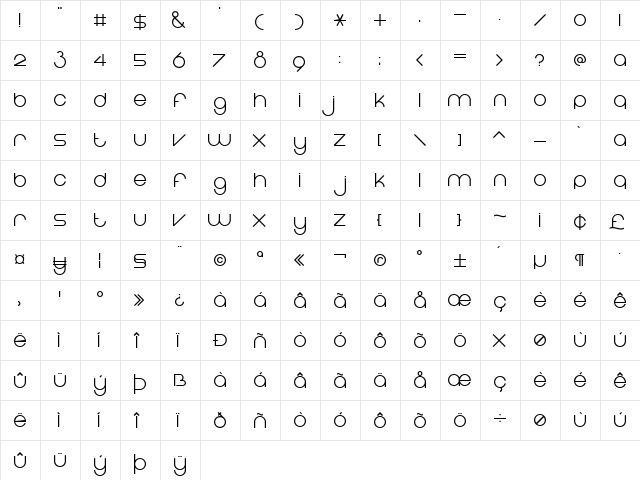
Eight One Regular
| Foundry | Tendron |
| Designer | Tendron |
Design Context for Eight One Typeface
Eight One is a composed and adaptable typeface that performs quietly and consistently across a wide range of design contexts.